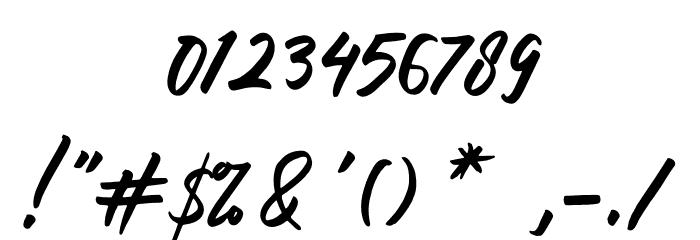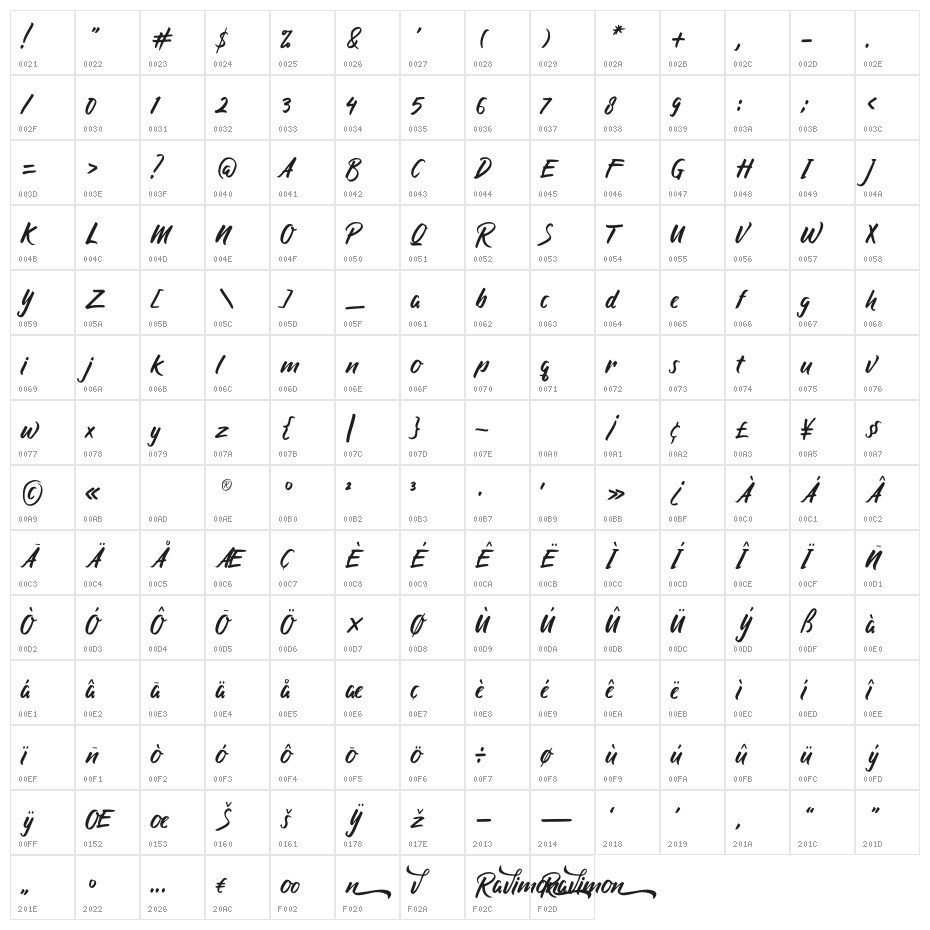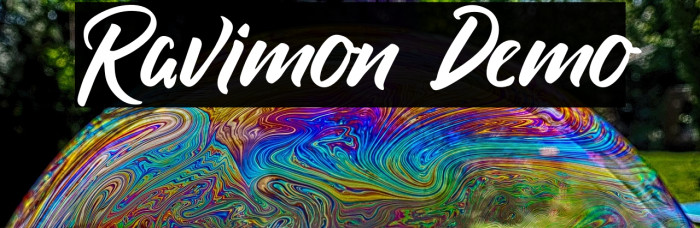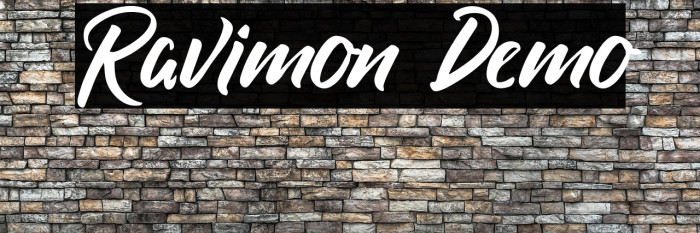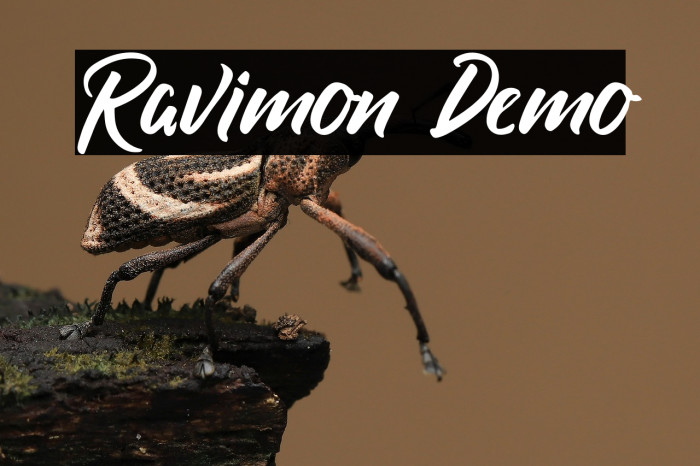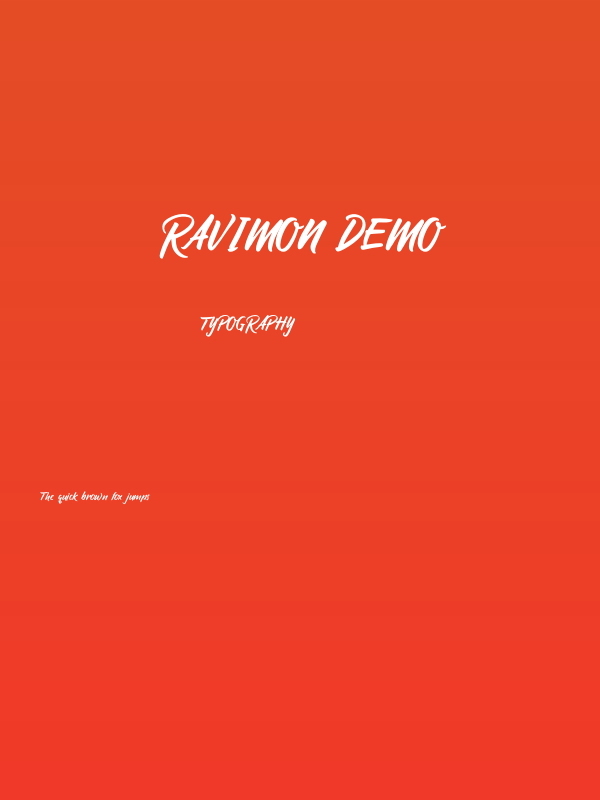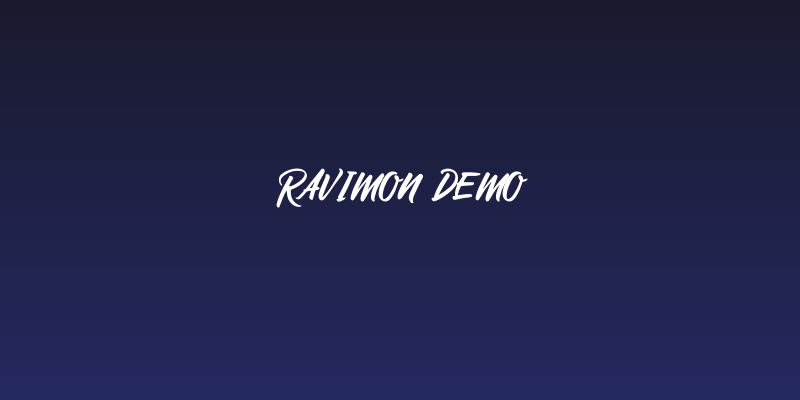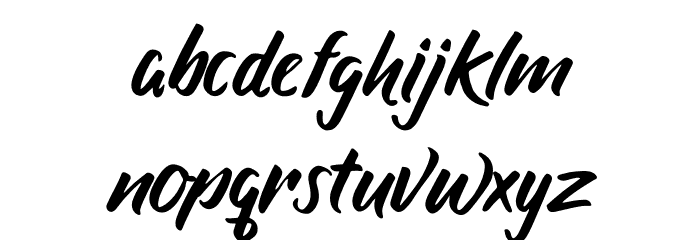
Ravimon Demo Font
Ravimon Demo Description
This font features a dynamic and expressive handwritten style, characterized by its fluid and cursive letterforms. The strokes are bold and confident, with a slight slant that adds to its energetic feel. Each character is distinct, yet they flow together seamlessly, creating a cohesive and visually appealing text. The uppercase letters are bold and prominent, while the lowercase letters maintain a consistent rhythm and balance. Numbers and special characters are crafted with the same attention to detail, ensuring versatility across different uses.